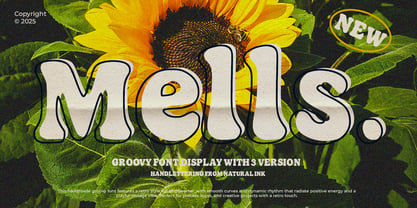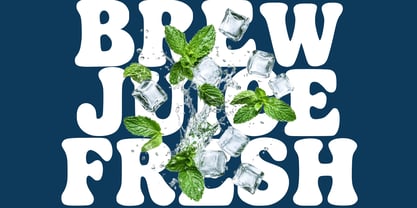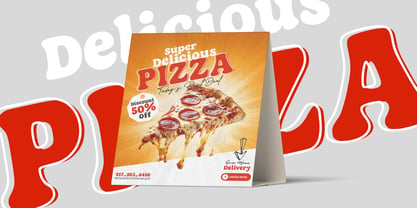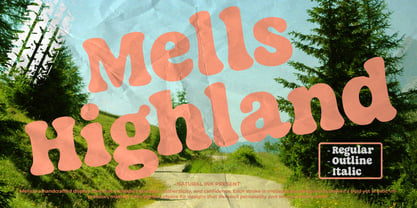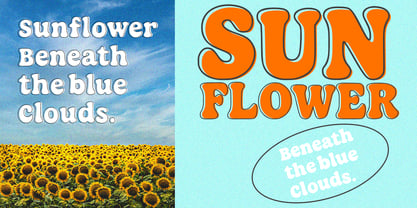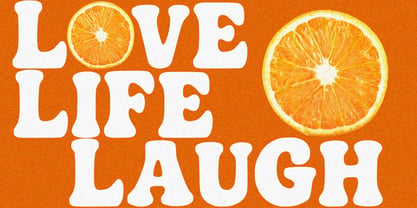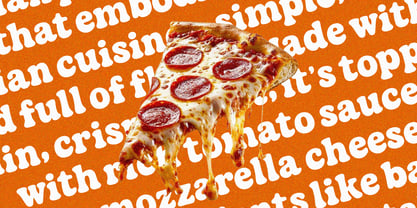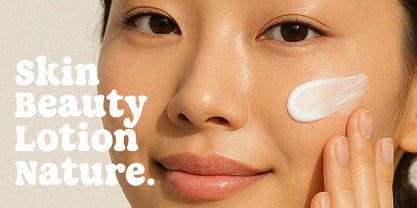
Mells Highland
The Mells Highland Font Family was designed by Arif Gunawan and published by Natural Ink. Mells Highland contains 3 styles and family package options. More about this family
Mells is a playful handwritten display font that captures the charm of natural handwriting with a bold and expressive touch. Its imperfect strokes and organic curves bring a sense of warmth and authenticity, making every letter feel personal and alive. Designed to stand out, Mells adds a creative and friendly vibe to your projects—perfect for logos, posters, packaging, branding, social media quotes, and handmade product labels. Whether used for headlines or short text, Mells effortlessly combines artistic flair with modern readability, giving your design a truly human and joyful personality.
Mells Highland